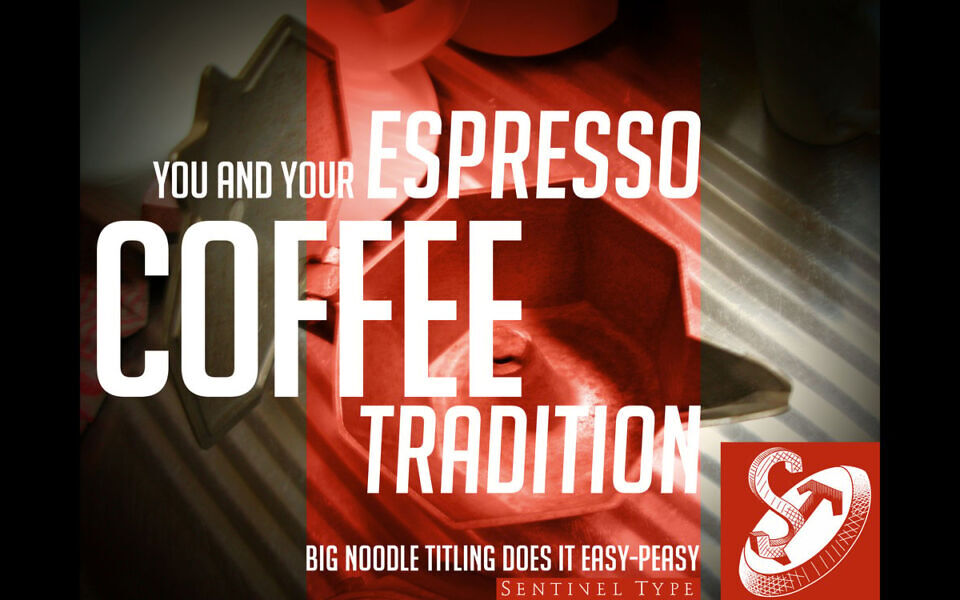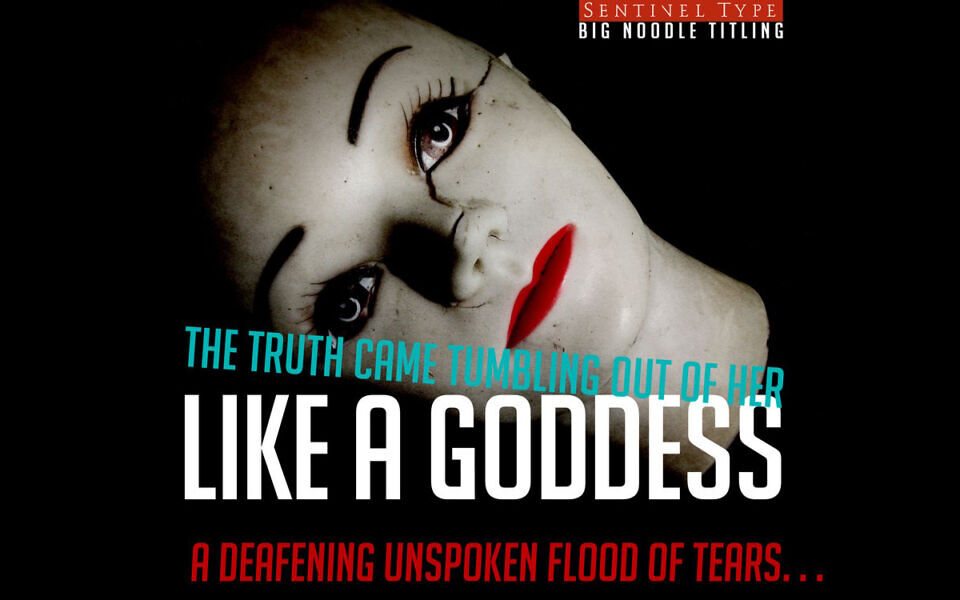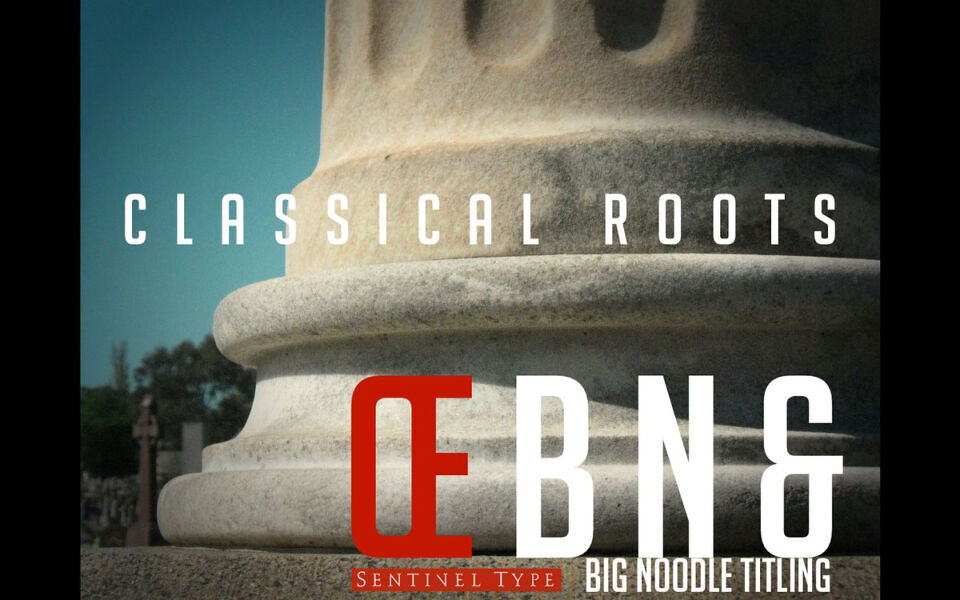
A generic set of capitals built on the gothic even width principle, built from squared forms and a simplified finish, Big Noodle Titling delivers excellent clarity in any medium. Big Noodle’s key features are its utility and unremarkable appearance.
Patterned after countless squared grotesks and linears, the type is industrial in essence with a contemporary treatment, a robust work-a-day typeface subservient to the message. A companion oblique font and a block shadow oblique font are included with the base font. One weight fits all Big Noodle Titling is ideal for everything you can think of. In OpenType & TrueType flavors.